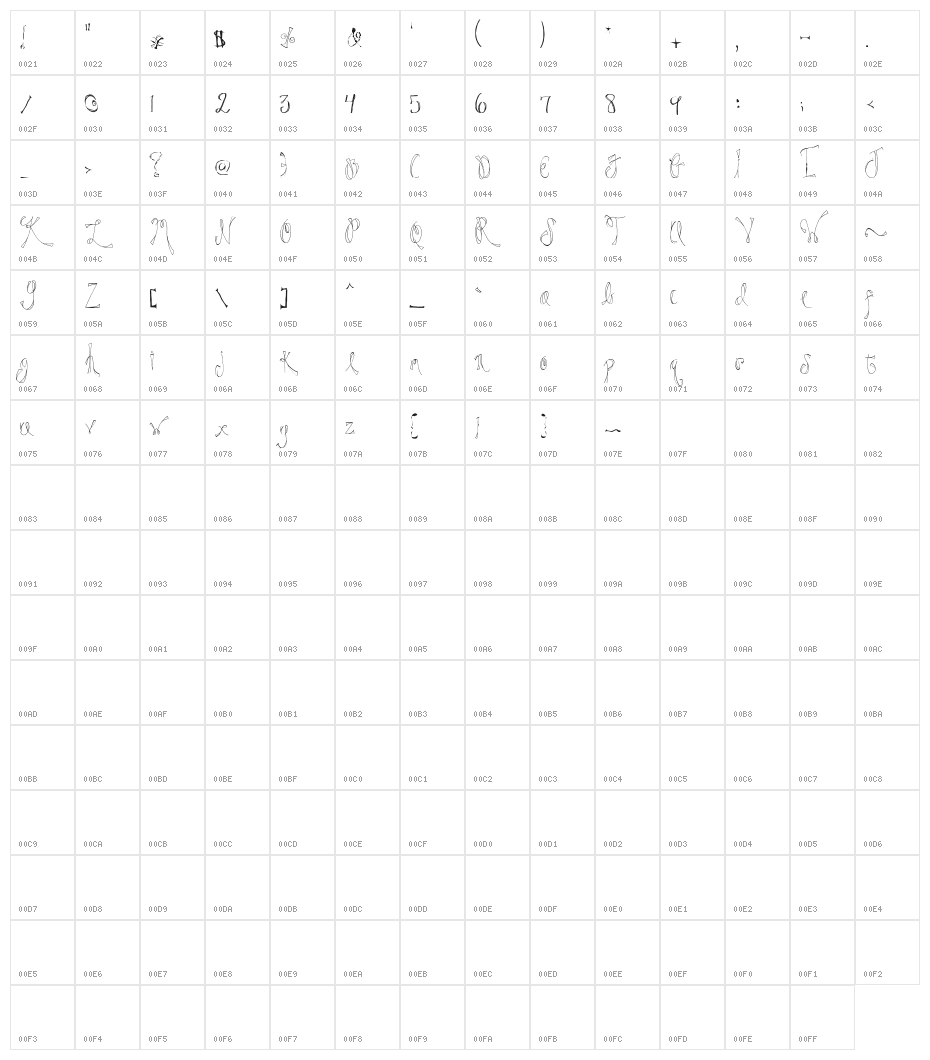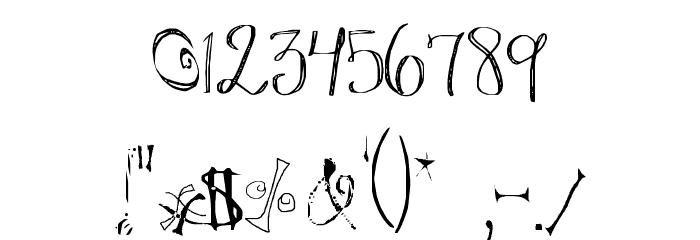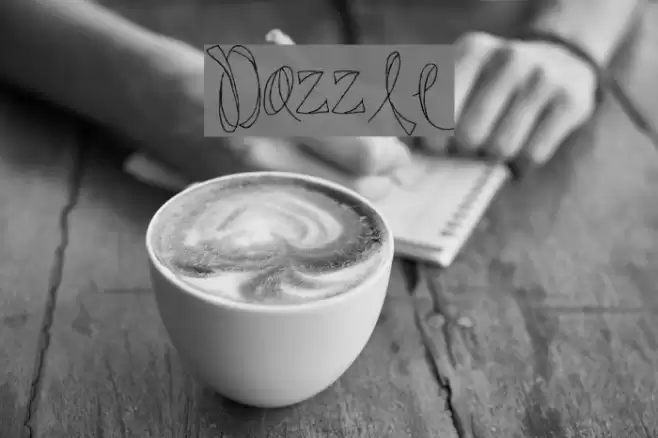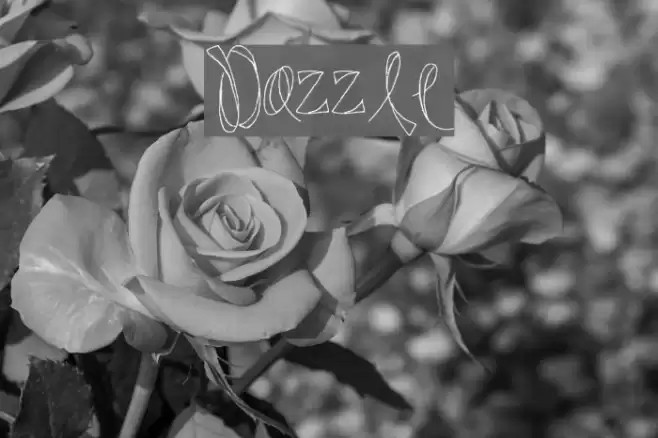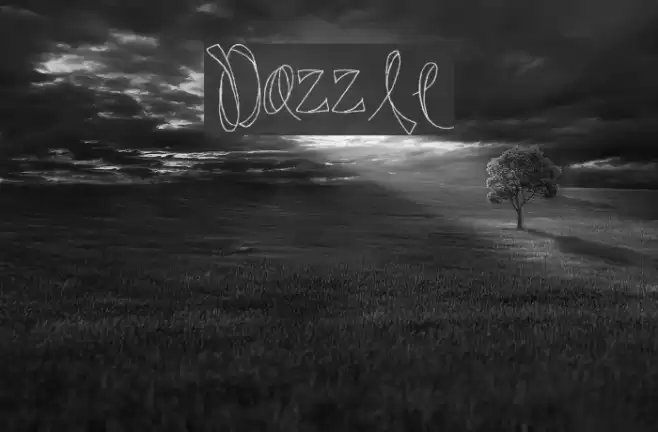
Dazzle Font
Dazzle Description
This font features an eclectic and artistic style, characterized by its flowing, cursive-like strokes that create a sense of movement and whimsy. The letters are uniquely crafted with varying line thicknesses, giving it a hand-drawn appearance. The uppercase letters are bold and expressive, while the lowercase letters maintain a playful yet elegant form. Numbers and special characters follow the same artistic theme, adding to the font's overall charm. This font's distinctive style makes it stand out, perfect for creative and artistic projects.
| Overall Style | Artistic |
| Use Case | Logos, Artistic posters, Invitations |
| Proposed Projects | Ideal for creative projects such as invitations, greeting cards, artistic posters, and branding materials that require a unique and expressive touch. |